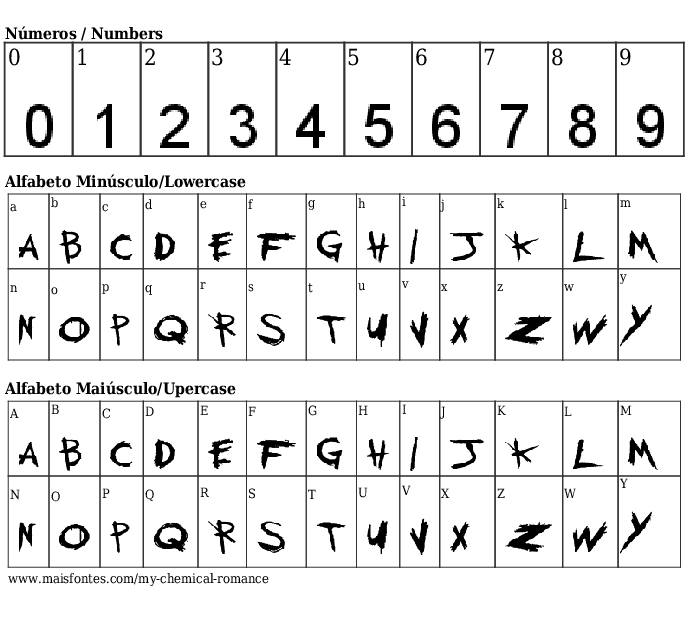
It because i wanted it and it has since been downloaded many times from my deviant art and picked up from many free font download pages as well as been stolen by others claiming they. Click to find the best 3 free fonts in the my chemical romance style.
Ad download 100's of fonts, graphic assets, actions, icons & more! The my chemical romance font contains 1674 beautifully designed characters. The logo of mcr, as seen on the cover of their third album the black parade, is simply its logotype with trash style lettering and it was probably hand drawn due to.
My chemical romance font this font was posted on 10 may 2015 and is called my chemical romance font. My chemical romance font, download my chemical romance.ttf truetype or.zip free free windows fonts for donwload My chemical romance font here refers to the font used in the logo of my chemical romance, which is an american alternative rock band formed in 2001.